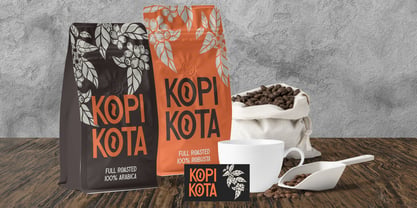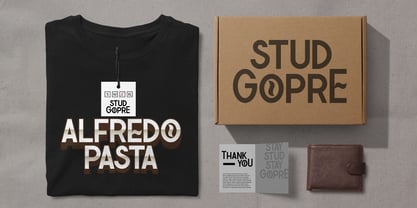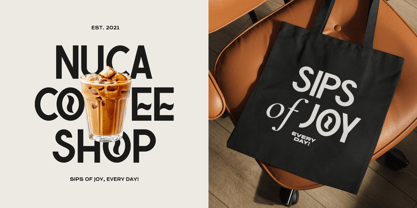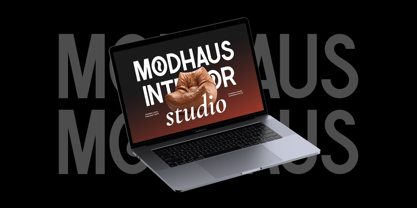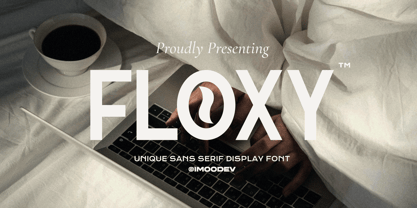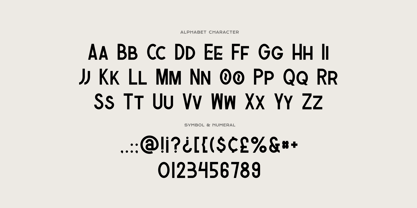
Floxy
von Imoodev
Die Schriftfamilie Floxy wurde von Aulia Savira Putri entworfen und von Imoodev veröffentlicht. Floxy enthält 1 Stile. Mehr über diese Familie
Floxy is a bold display font designed to bring a aromatic energy to your creative projects. Characterized by its sturdy, condensed geometric structure, Floxy features a unique visual twist: letter "O" designed like coffee bean, making it an instant favorite for cafes, roasteries, and modern food branding. This font ideal choice for lifestyle and culinary branding, coffee themed, cafe menus, and food labels.
Designer: Aulia Savira Putri
Foundry: Imoodev